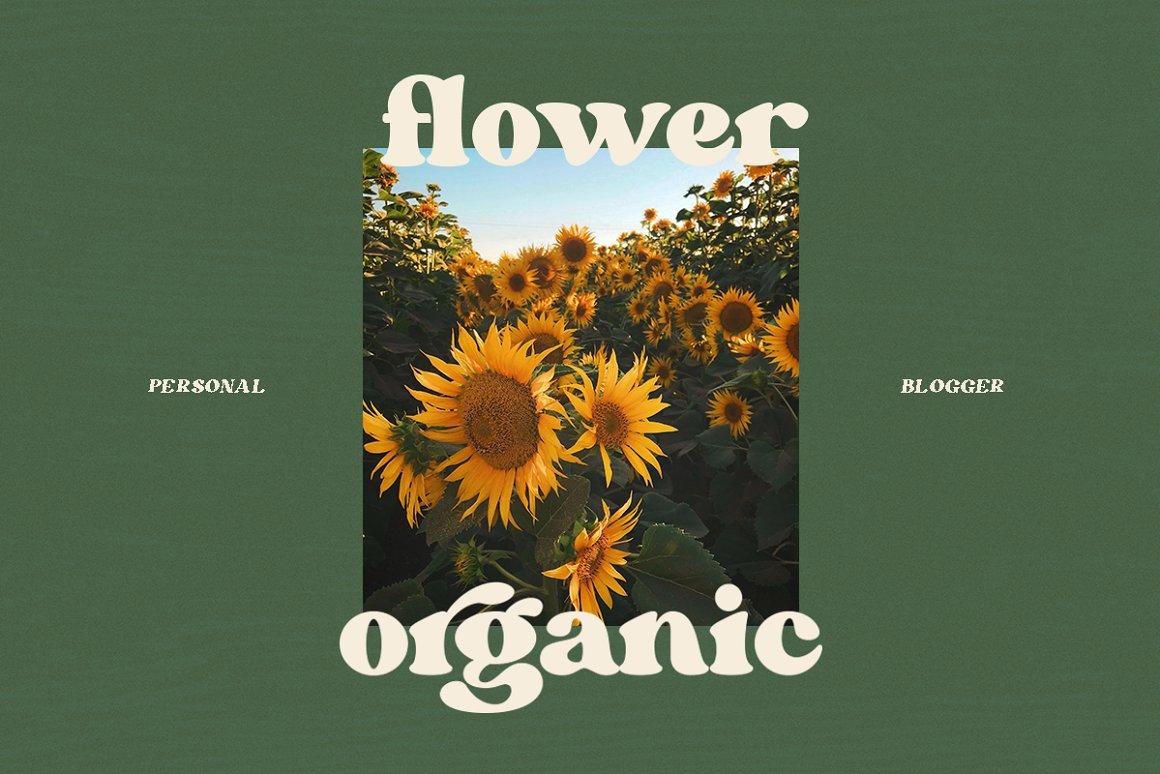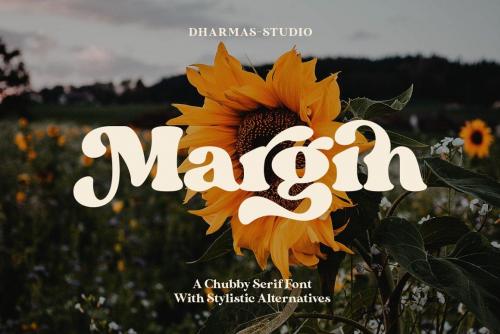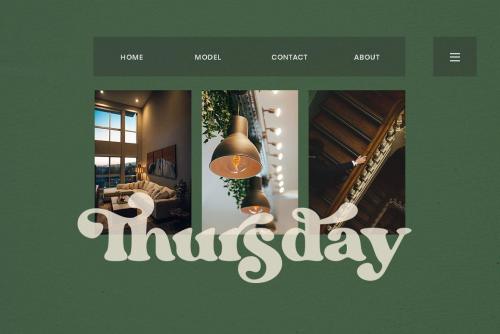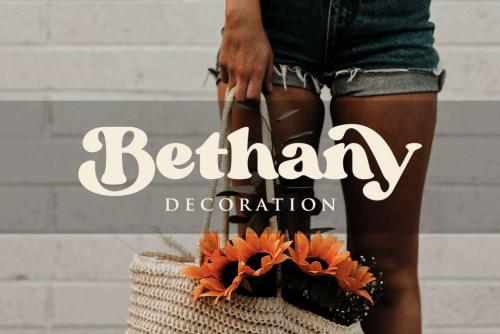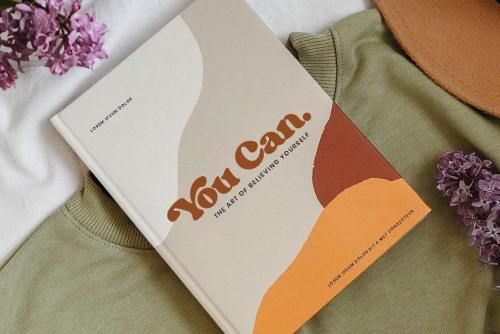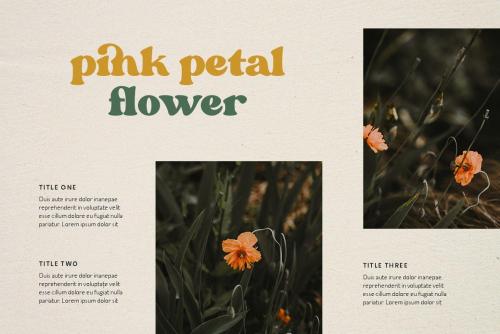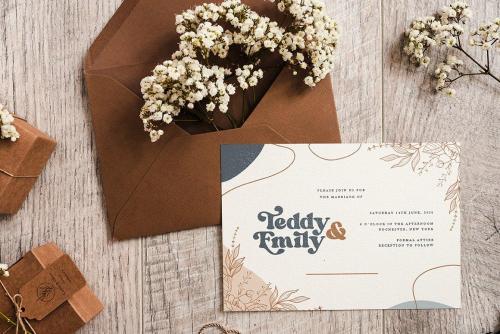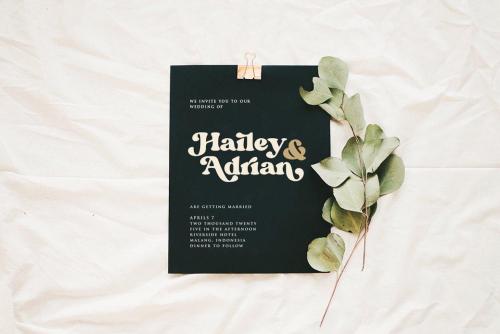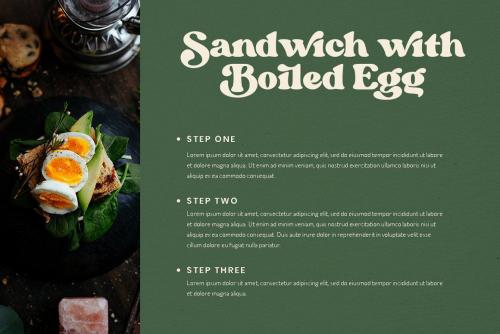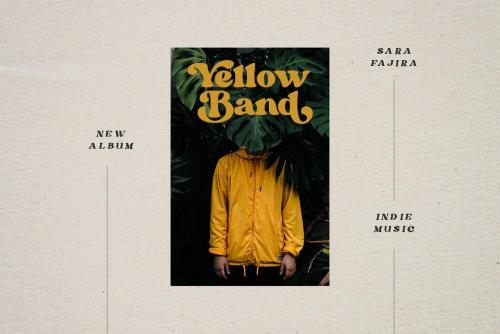
Margin is a stylish font that is both retro and bold font. It’s thick curves give a 70s groovy vibe with the serifs bringing it slightly back to traditional.
Margin fits perfectly into those nostalgic moodboards and vintage logos. It come with a unique lower and uppercase plus numbers, punctuation & multilingual letters.